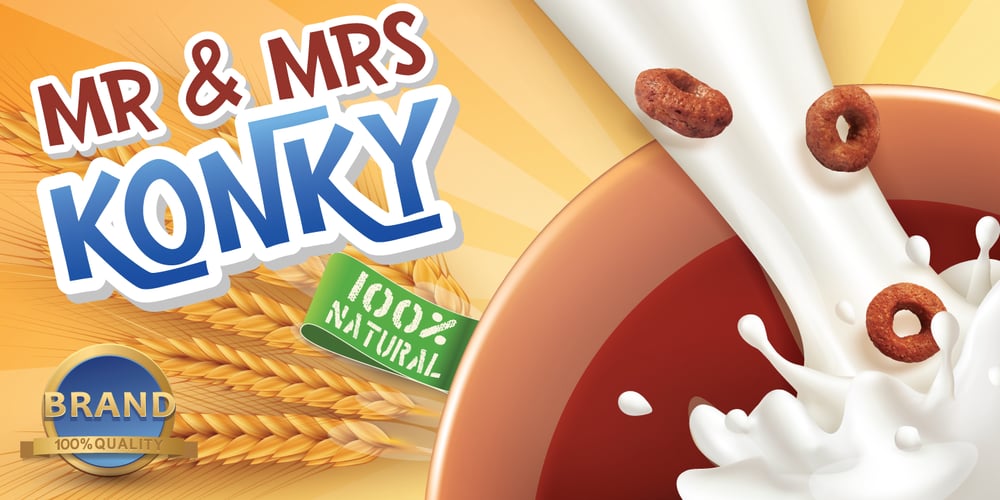
Mr & Mrs Konky Font Family was designed by David Cohen, Dathan Boardman and published by Rocket Type. Mr & Mrs Konky contains 4 styles and family package options. Bet your sweet donkey it’s Mr. and Mrs. Konky! A causal, cartoony concoction made by hand! Marital bliss has been achieved with tons of alternates, ligatures and a full Vietnamese character set.